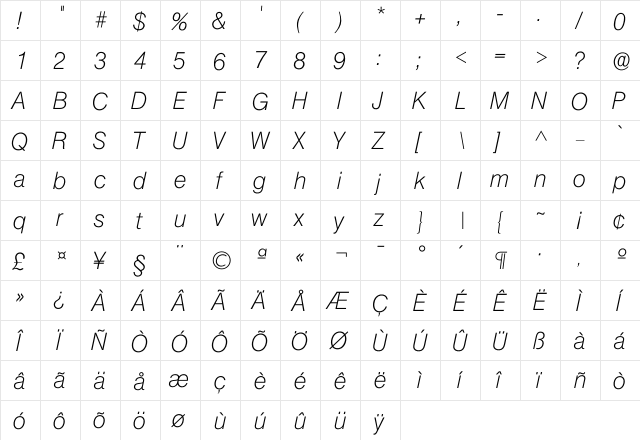
Iolympia Xlight Font Preview
Iolympia Xlight
Iolympia Xlight Font Details
Design Context for Iolympia Typeface
Iolympia is a composed and adaptable typeface that performs quietly and consistently across a wide range of design contexts. Its slender proportions lend an understated elegance to any composition.